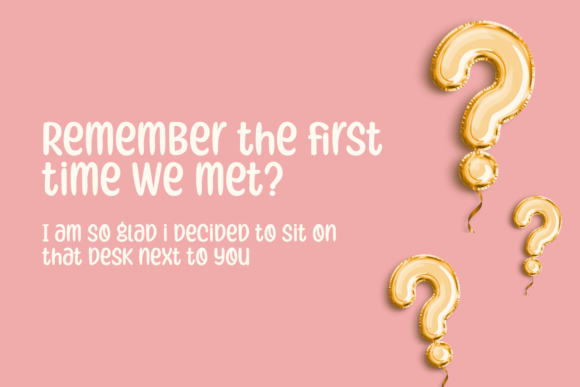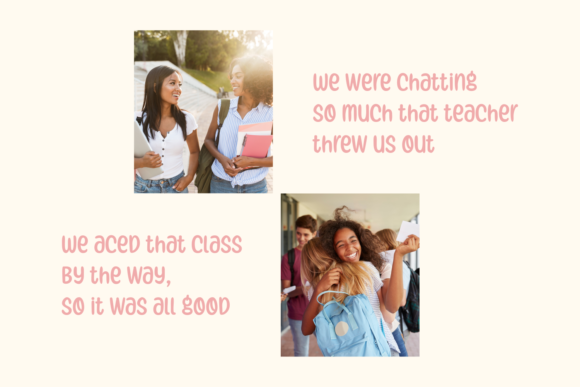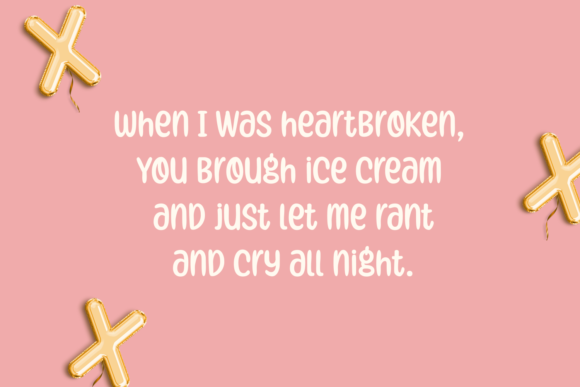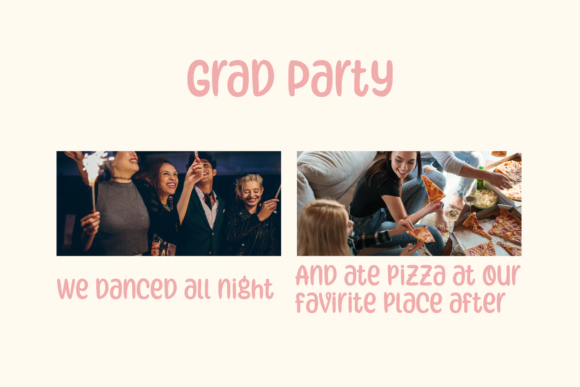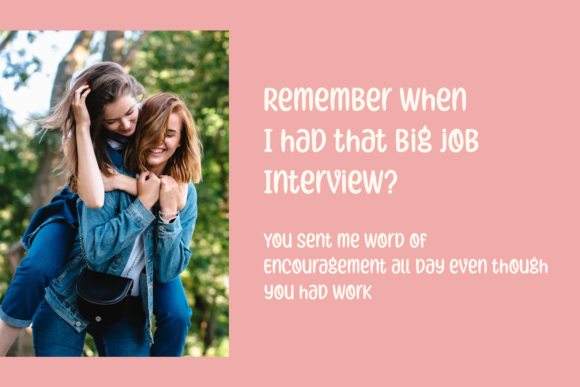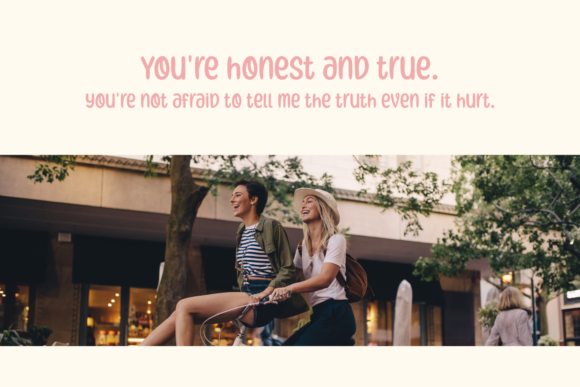
Introducing Friendly Smiley Font: The Perfect Addition to Your Typography Collection
Are you tired of using the same old fonts in your designs? Do you want to add a touch of personality and whimsy to your creations? Look no further than Friendly Smiley Font, a fun, natural, and informal handwritten font that’s sure to elevate your typography game.
What is Friendly Smiley Font?
Friendly Smiley Font is a unique and charming handwritten font that’s perfect for designers, crafters, and anyone looking to add a personal touch to their projects. With its natural and informal feel, this font is ideal for a wide range of applications, from social media graphics and blog posts to invitations, posters, and more.
The Benefits of Friendly Smiley Font
No matter the topic, Friendly Smiley Font is an incredibly versatile asset to have in your font library. Here are just a few benefits of using this amazing font:
- Adds Personality to Your Designs: Friendly Smiley Font is the perfect way to inject some personality into your designs. Its fun and playful vibe is sure to capture the attention of your audience and leave a lasting impression.
- Perfect for Informal Projects: Whether you’re working on a social media graphic, blog post, or invitation, Friendly Smiley Font is the perfect choice for informal projects that require a personal touch.
- Easy to Read: Despite its playful feel, Friendly Smiley Font is incredibly easy to read, making it perfect for body text and longer blocks of content.
- Versatile: Friendly Smiley Font can be used for a wide range of projects, from digital designs to print materials, and everything in between.
Who is Friendly Smiley Font for?
Friendly Smiley Font is perfect for:
- Designers: Whether you’re a professional designer or a DIY enthusiast, Friendly Smiley Font is a great addition to your font library.
- Crafters: If you love crafting, scrapbooking, or making DIY projects, Friendly Smiley Font is a great way to add a personal touch to your creations.
- Small Business Owners: If you’re looking for a way to add some personality to your branding, Friendly Smiley Font is a great choice.
- Bloggers and Social Media Influencers: Friendly Smiley Font is perfect for creating engaging social media graphics and blog posts that stand out from the crowd.
How to Use Friendly Smiley Font
Using Friendly Smiley Font is easy! Here are a few tips to get you started:
- Pair it with Other Fonts: Friendly Smiley Font pairs well with a wide range of fonts, from serif and sans serif fonts to script fonts and more.
- Use it for Headings and Body Text: Friendly Smiley Font is easy to read, making it perfect for both headings and body text.
- Add it to Your Brand Kit: If you’re a small business owner or blogger, consider adding Friendly Smiley Font to your brand kit for a consistent look and feel across all your designs.